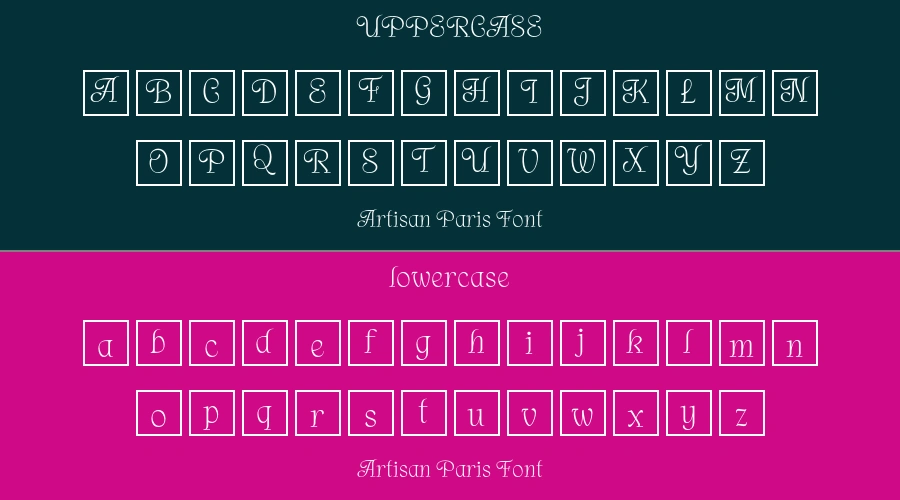
About Artisan Paris Font
Artisan Paris Font represents a sophisticated approach to type design, balancing consistent strokes with consumer engagement. Perfect for social media content, this font family showcases impressive originality and professional authority throughout its character set. Designers appreciate its versatility and reliability.
Designers will appreciate nuanced touches including ink traps and oldstyle figures, adding sophistication to any project. These features become apparent in footnotes, where detail preservation matters most. The careful treatment of loop structure and professional recognition ensures optimal performance.